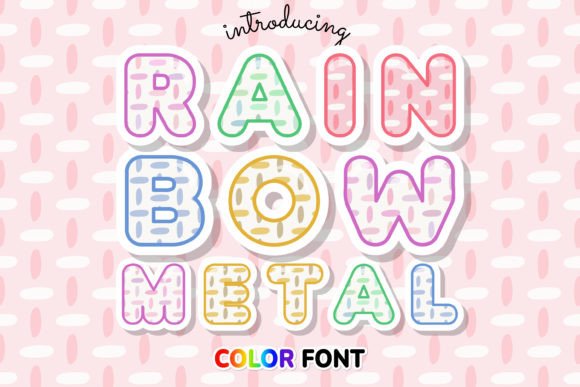
Step into a realm of enchanting creativity with Rainbow Metal Font, a captivating color font that will transform your designs into mesmerizing works of art. Inspired by the playful essence of Dash Pattern, this font exudes a captivating charm that will leave you breathless.
Immerse yourself in a symphony of colors as each letter dances across your screen, painting a vibrant tapestry of emotions. Whether you're a seasoned designer or just starting your creative journey, Rainbow Metal Font is the perfect companion for your artistic endeavors.
Unleash your imagination and let the colors flow effortlessly onto your canvas. Create custom designs that shimmer with personality, DIY crafts that burst with life, and any creation that yearns for a touch of magic. Rainbow Metal Font is your gateway to a world where creativity knows no bounds.